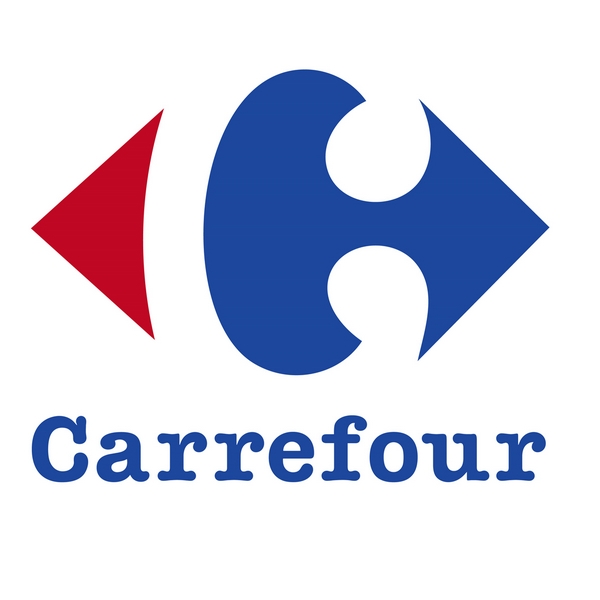
Carrefour Font
Fonts in UseCarrefour is a French multinational retail corporation that operates a chain of hypermarkets, supermarkets, and convenience stores. It was founded in 1959 in Annecy, France by Marcel Fournier, Denis Defforey, and Jacques Defforey.
Carrefour's wordmark was revamped in 2009 and appears to have a unique design or a custom typeface. The earlier version, visible in some store chains, is likely set in ITC American Typewriter Bold.